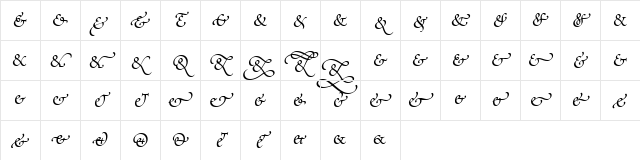
Complete PoeticaSuppAmpersands RomanItalic glyph index. Displaying only characters natively supported by PoeticaSuppAmpersands RomanItalic font.
PoeticaSuppAmpersands is a composed and adaptable typeface that performs quietly and consistently across a wide range of design contexts. The slanted form adds forward momentum and visual energy.